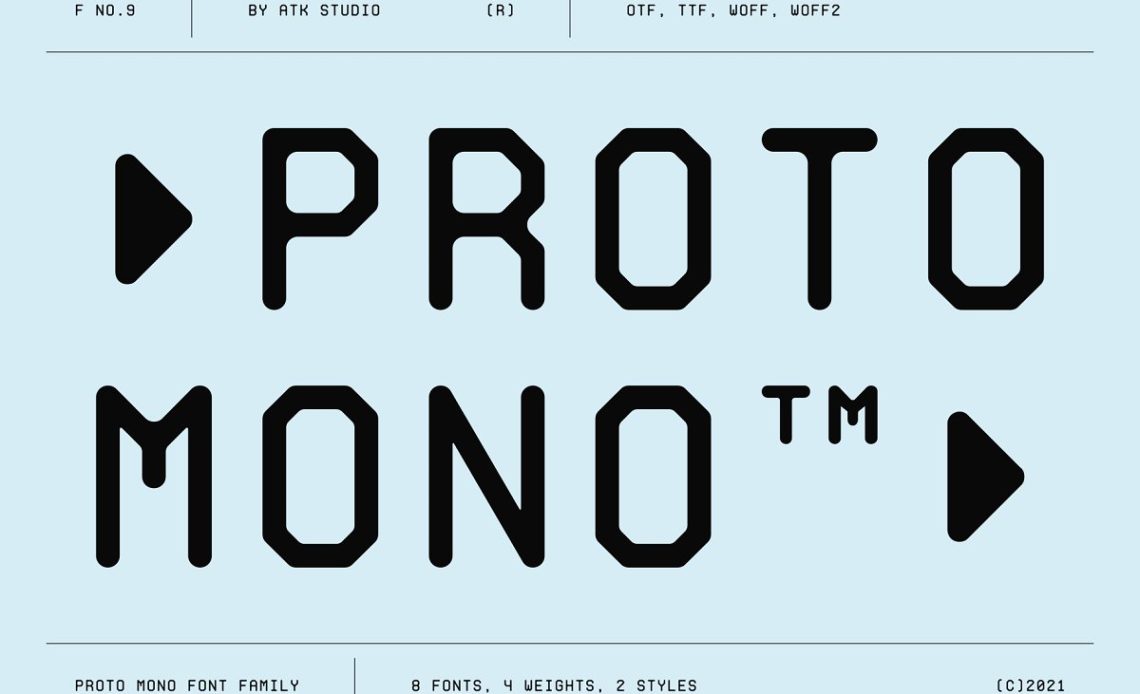
Introducing Proto Mono™ - the ultimate modular monospaced font for tech logos! Created by the talented Radinal Riki Mutaqin, Proto Mono™ is designed with a unique tech industrial taste that perfectly suits electronic displays found in our modern world.
With its rounded shapes and captivating design, Proto Mono™ is the perfect font for any business looking to make a statement. From postal packing slips and airline tickets to informational video displays and ads, Proto Mono™ is the ideal choice for companies that want to stand out in a crowded marketplace.
This versatile font family comes in two styles with four weights each, giving you plenty of options to choose from. And with a character set that covers over 100 languages, Proto Mono™ is the perfect choice for businesses looking to expand their reach and connect with customers from around the world.